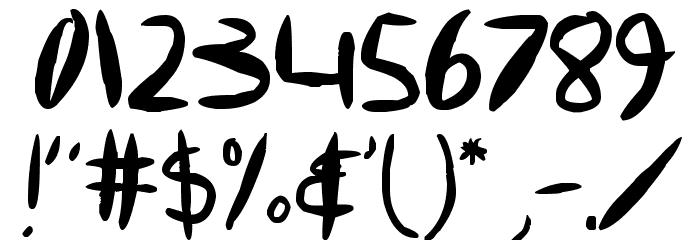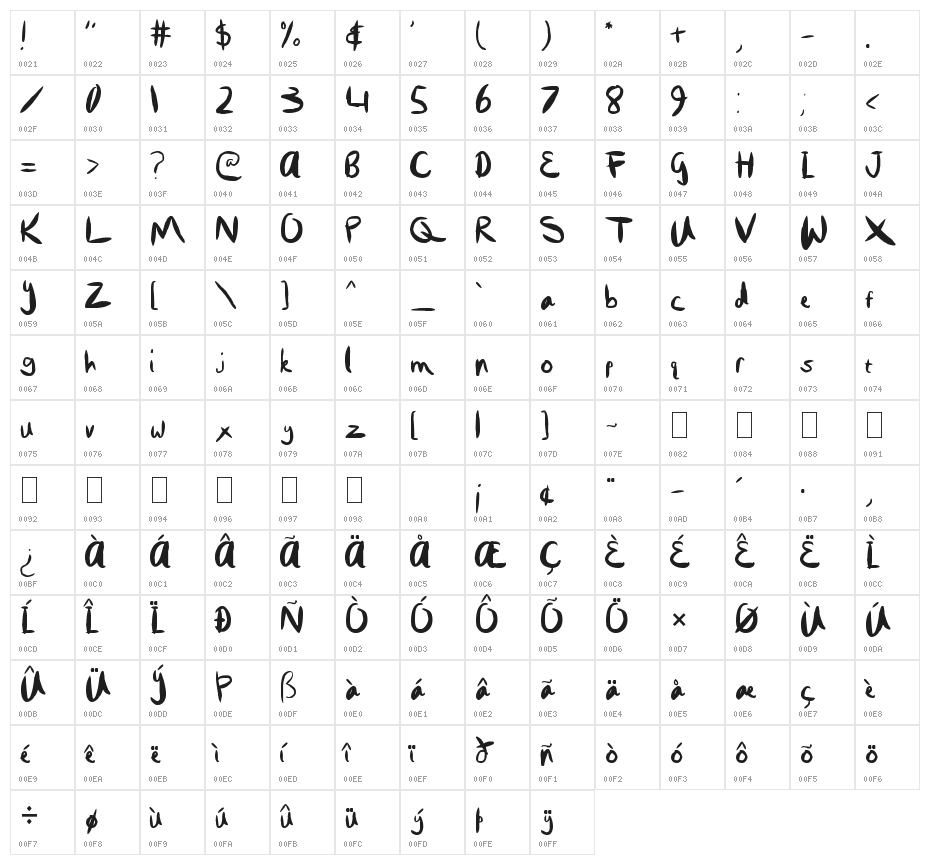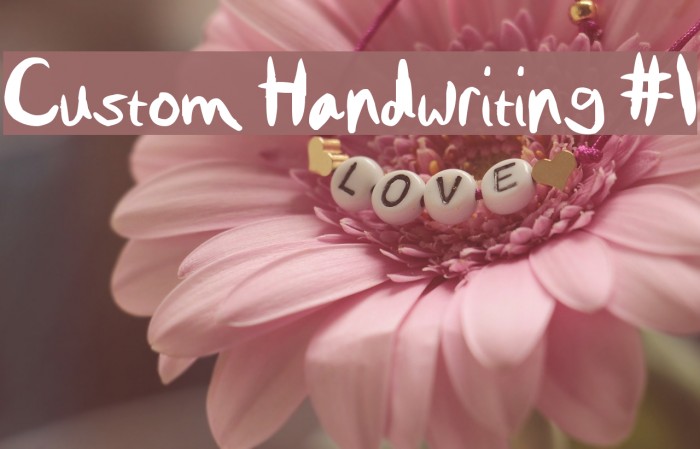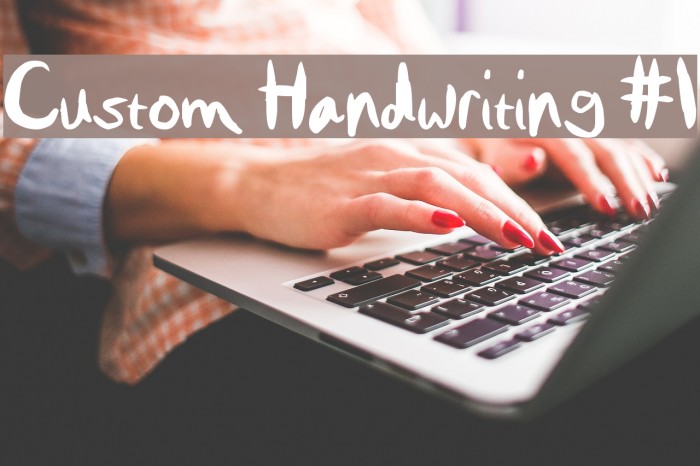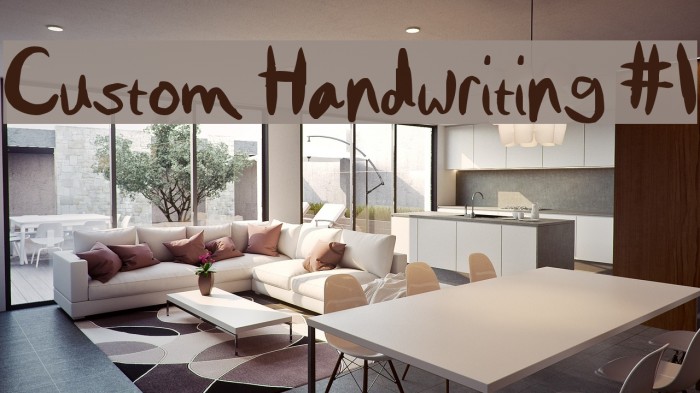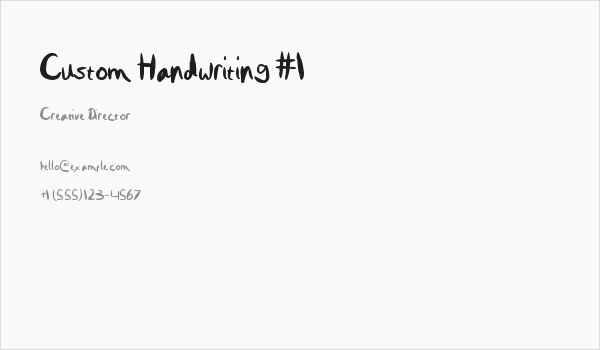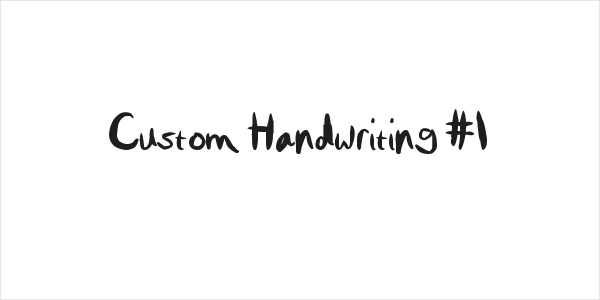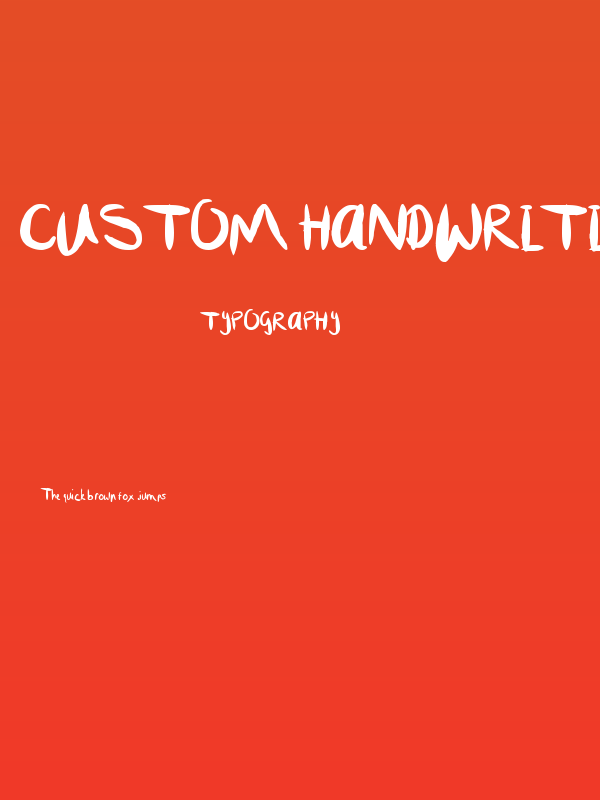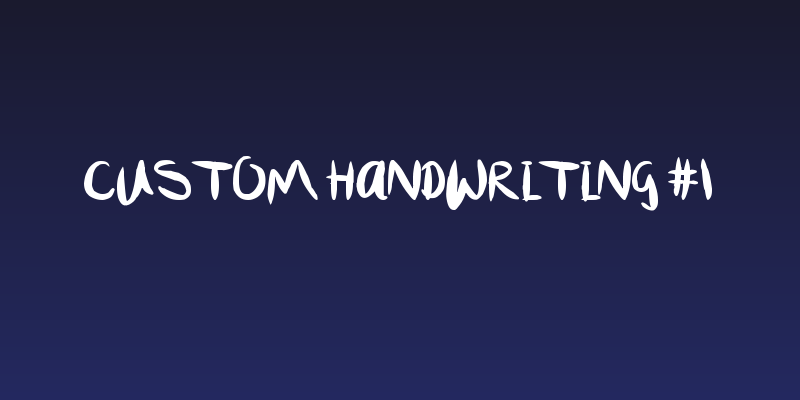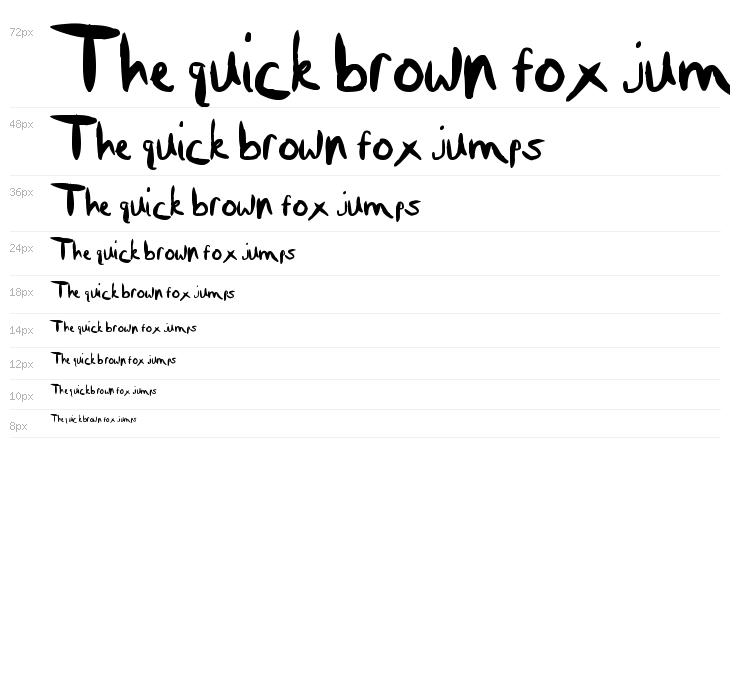
Custom Handwriting #1 Font
Custom Handwriting #1 Description
This font exudes a casual, handwritten style with a playful and energetic flair. The letters are bold and slightly irregular, giving them a dynamic and lively appearance. The strokes are thick and expressive, with a noticeable variation in width that adds to the font's charm. The uppercase letters are robust and commanding, while the lowercase letters maintain a friendly and approachable look. Numbers and special characters are crafted with the same boldness, ensuring consistency across all elements. This font is perfect for projects that require a personal touch or a sense of spontaneity.